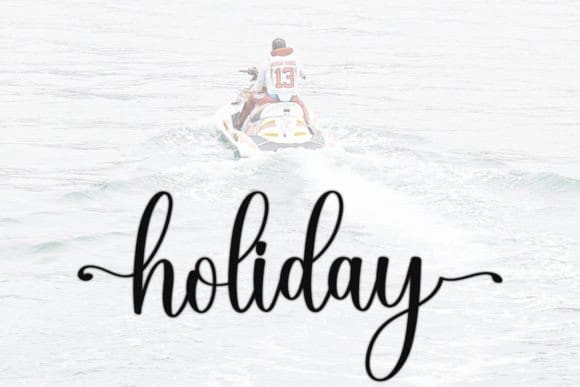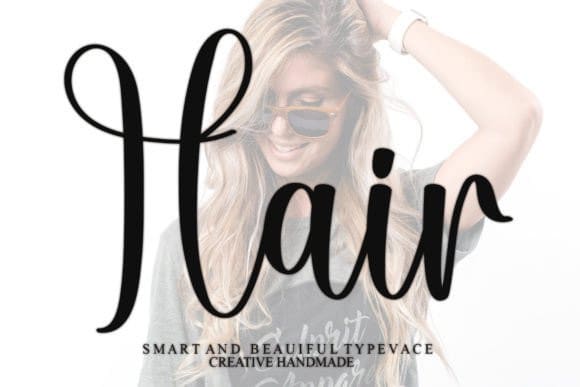
Hair Script Font
Hair Script Font is a gorgeous and bold handwritten font. It reads as confident and dynamic and can add tons of nostalgic character to your designs.